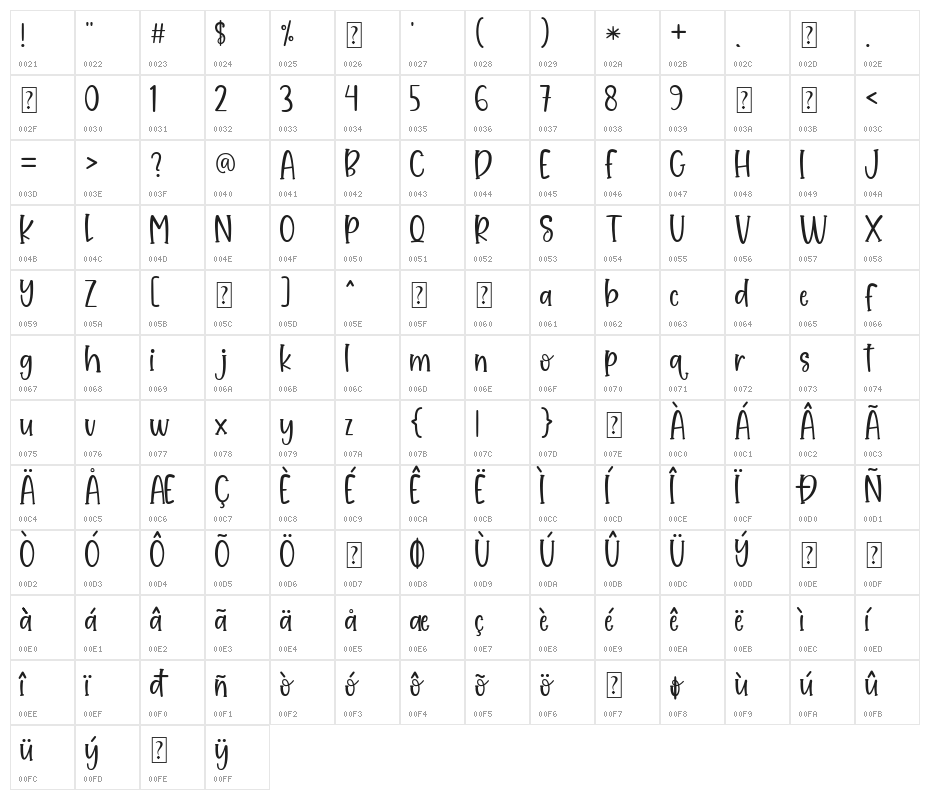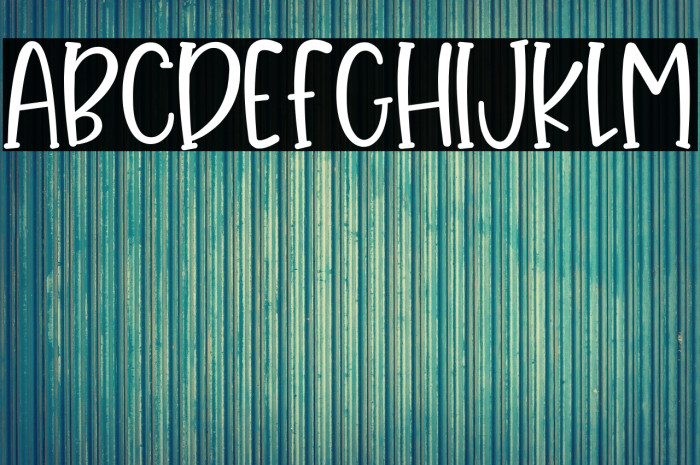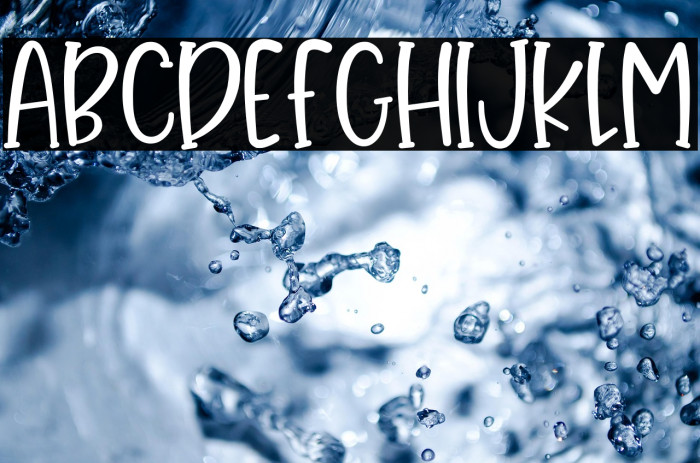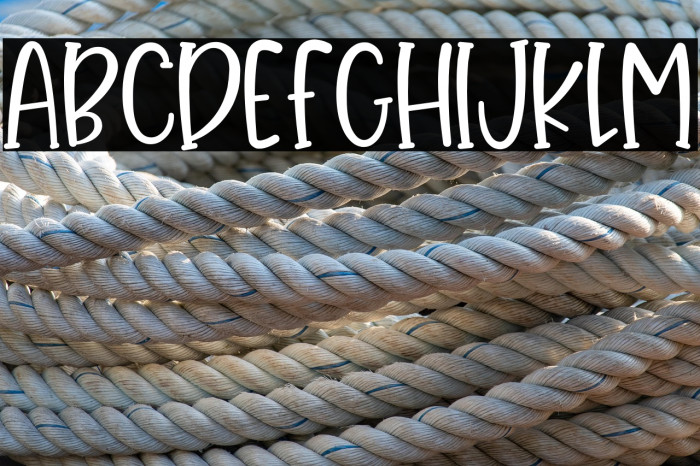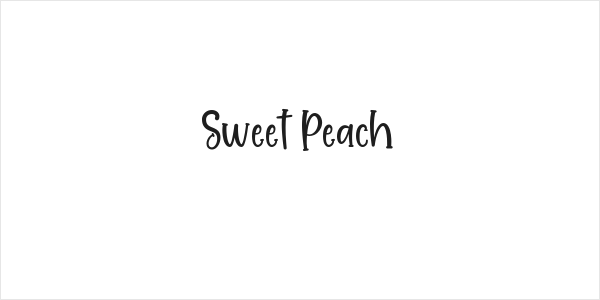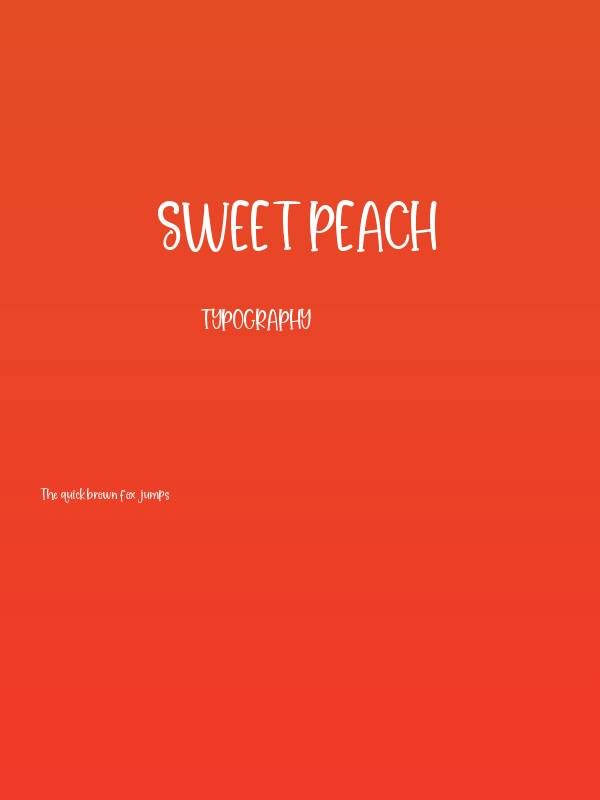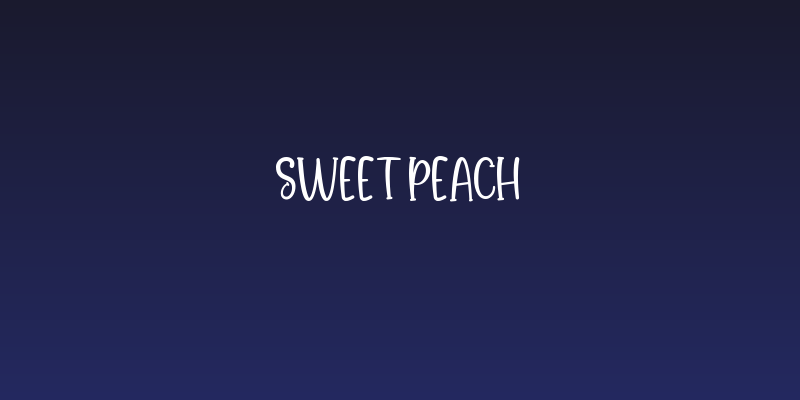
Sweet Peach Font
Sweet Peach Description
This playful and whimsical font features a handwritten style with a casual, friendly appearance. The characters are slightly slanted, giving a dynamic and lively feel. The uppercase letters are bold and prominent, while the lowercase letters maintain a consistent flow with rounded edges. Numbers and special characters are designed to match the overall playful aesthetic, making it suitable for creative and informal projects. The font's unique style is characterized by its irregular strokes and varying line thickness, adding to its charm and approachability.
| Use Case | Logos, Headlines, Informal Text |
| Proposed Projects | Ideal for greeting cards, children's books, playful branding, and social media graphics. |